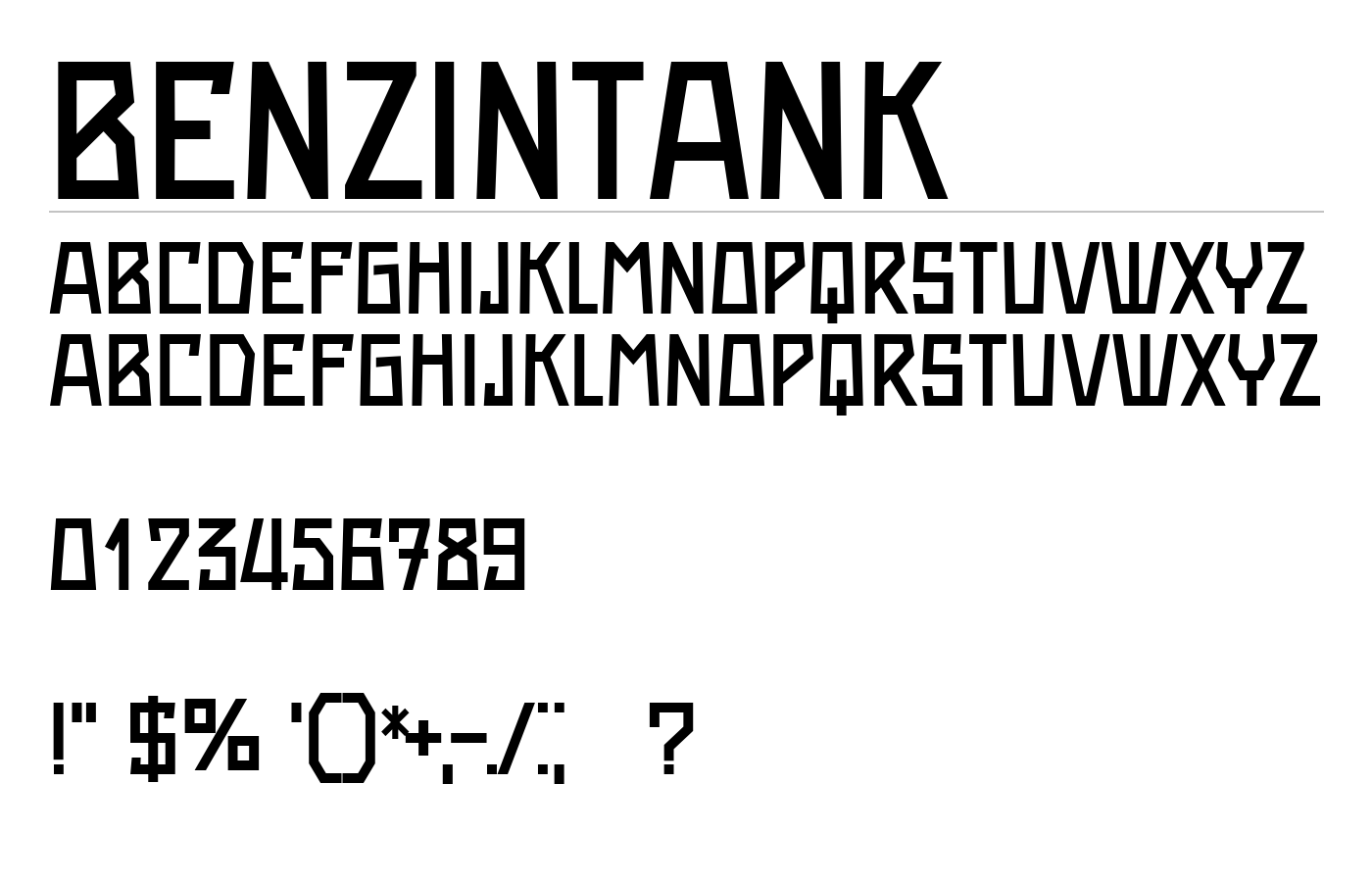
Benzintank is a bold, condensed sans serif font with a strong geometric and angular design that gives it an industrial, modern, and slightly futuristic feel. The typeface features sharp edges and distinctive letterforms that create a unique, attention-grabbing style, ideal for headlines, logos, and branding where a striking, unconventional look is desired. Its all-caps structure and consistent stroke weight make it perfect for impactful display use, especially in creative or tech-driven projects.
Benzintank Font
About Benzintank Font
| Font family | Benzintank Font |